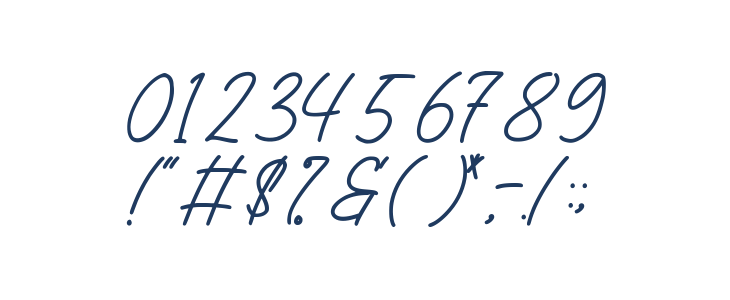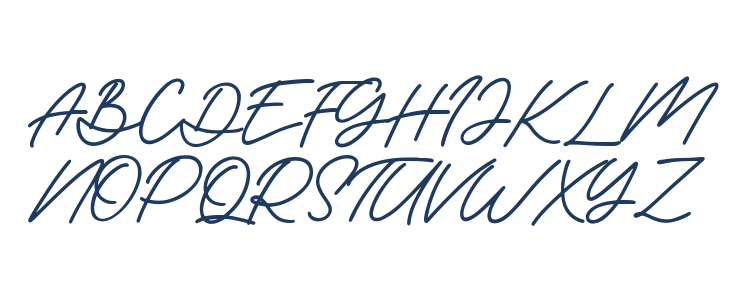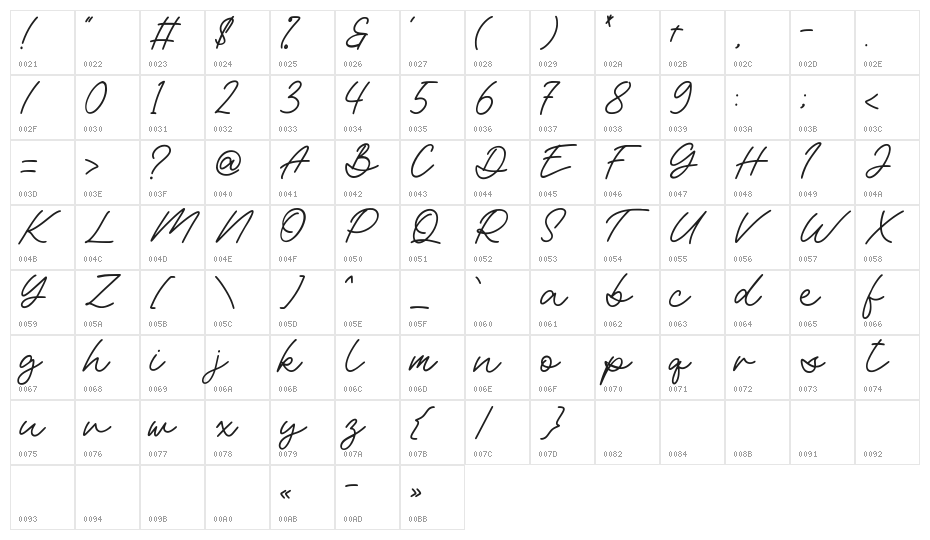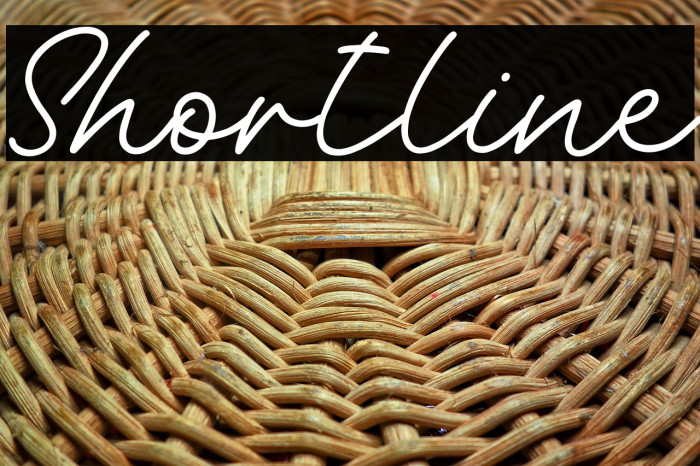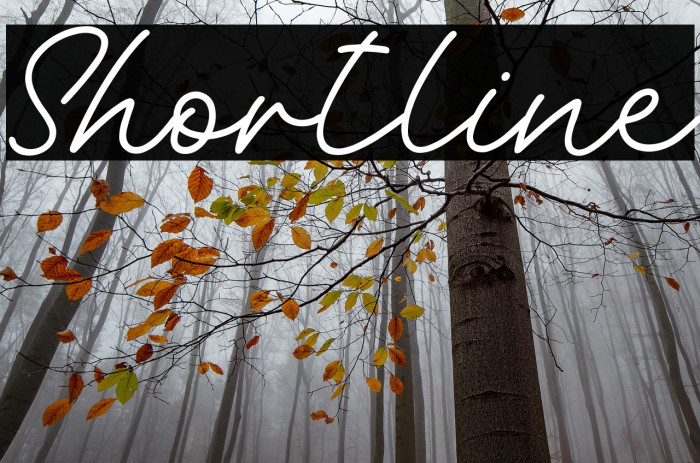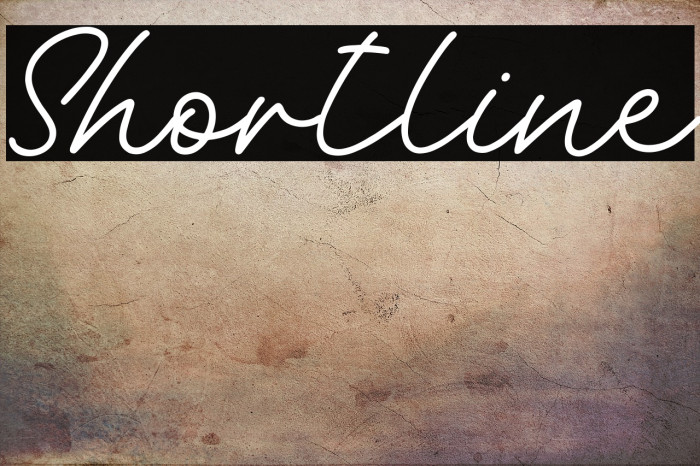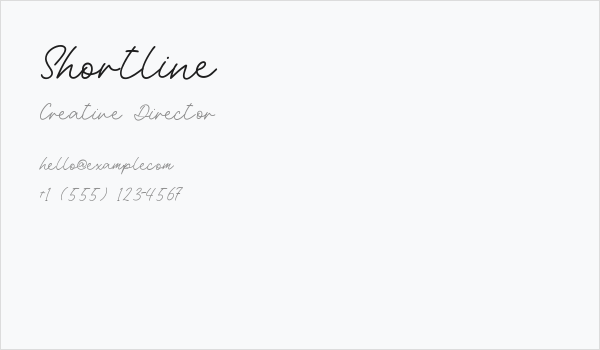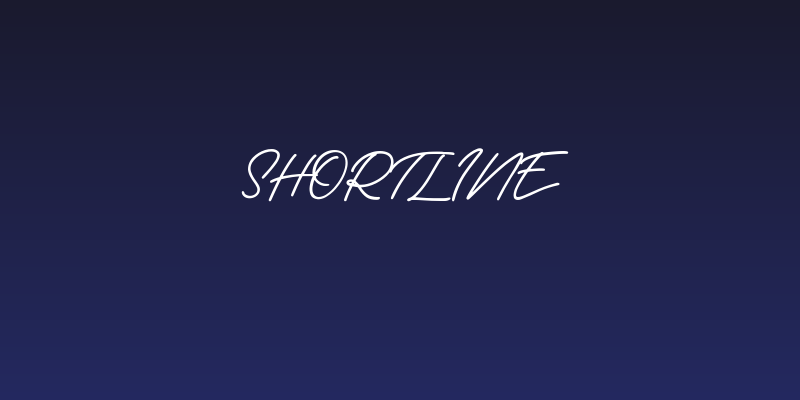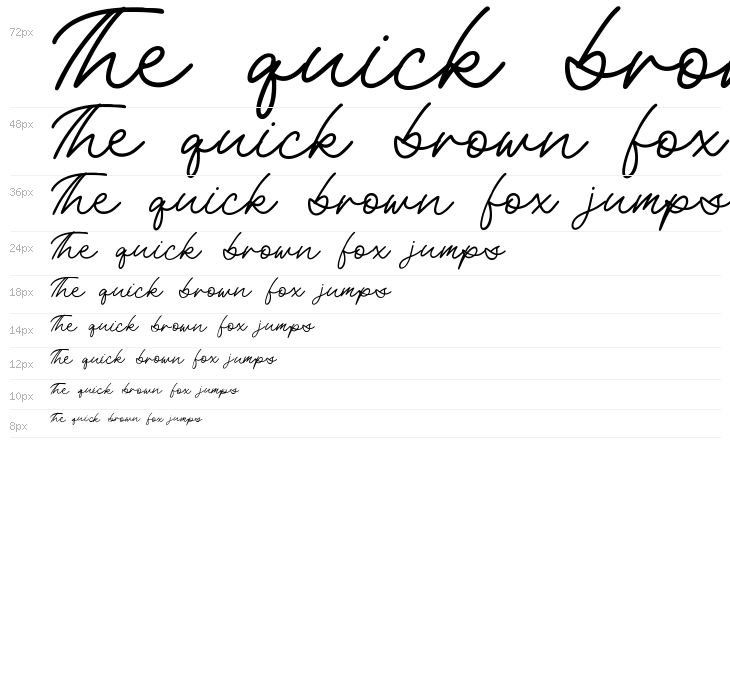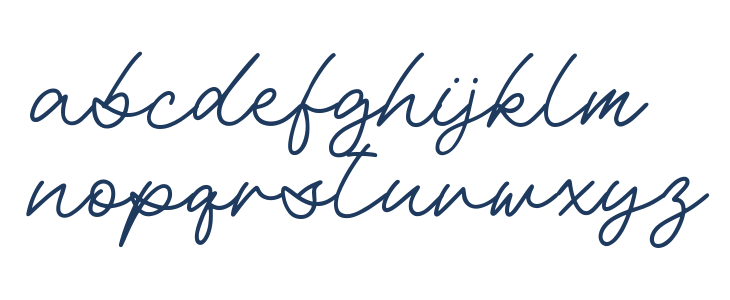
Shortline Font
Shortline Description
A smooth, flowing script font with a handwritten appearance, featuring connected and slightly slanted characters with consistent stroke weight.
| Overall Style | Elegant, casual, and modern handwritten |
| Use Case | Invitations, logos, decorative headlines |
| Proposed Projects | Invitations, greeting cards, personal branding, logos, and decorative text. |